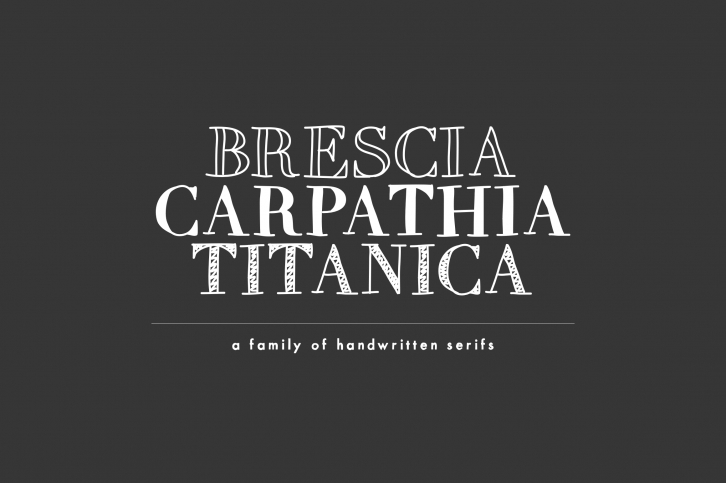
A Trio of Handwritten Serifs is a great font that was designed by Mikko Sumulong. Imagine the amount of combinations you can create using this font! The archive is 13.22 MB and it was released on August 23, 2018. A Trio of Handwritten Serifs looks beautiful on wedding invitations, greeting cards, logos, posters, labels, t-shirt designs, logos, business cards and is perfect for use in ink or watercolor works, fashion, magazines, packaging and food menus, children's books and more!